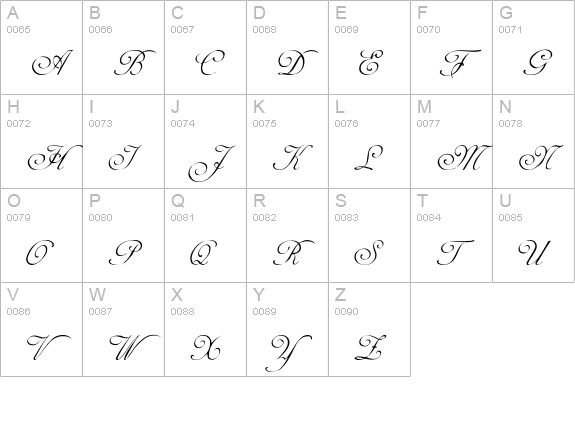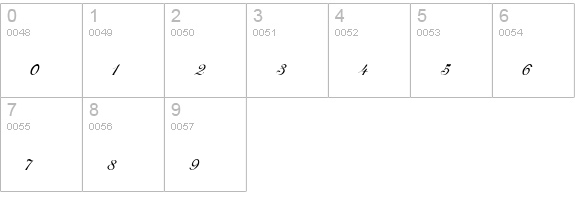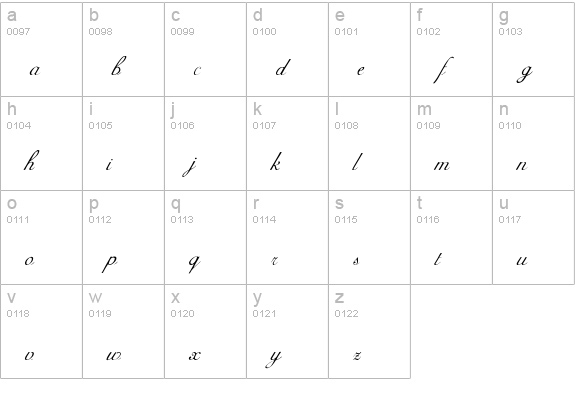
AdineKirnberg-S Font Details
AdineKirnberg-S is a stunning and elegant calligraphic font that exudes sophistication and charm. With its intricate flourishes and graceful letterforms, this font is perfect for adding a touch of class to any design project. Whether you're creating wedding invitations, branding materials, or decorative prints, AdineKirnberg-S is sure to make a memorable impression. What's even better is that AdineKirnberg-S is available for free download at FontsMarket.com. This means you can easily access this beautiful font to elevate your designs without breaking the bank. Don't miss out on the opportunity to enhance your projects with the timeless beauty of AdineKirnberg-S. Download it today and let your creativity shine!